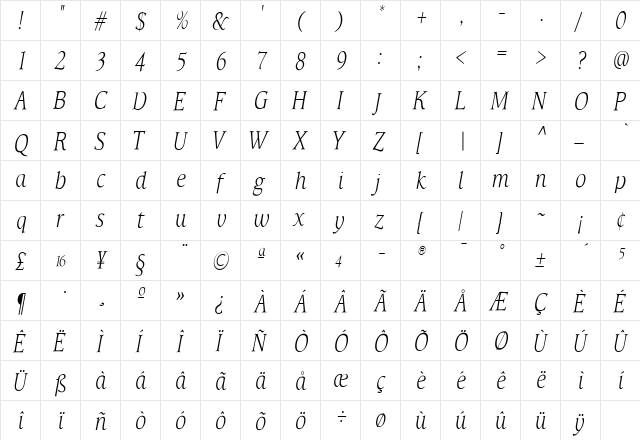
TFHabitatCond Italic Font Preview
Design Context for TFHabitatCond Typeface
TFHabitatCond is a composed and adaptable typeface that performs quietly and consistently across a wide range of design contexts. The dynamic lean of this cut emphasises speed and emphasis in any layout. The condensed width makes it efficient for tight spaces without sacrificing legibility.
Pro Tip: Try TFHabitatCond for annotation and caption copy alongside an upright companion — the contrast in angle creates a dynamic but ordered typographic system.